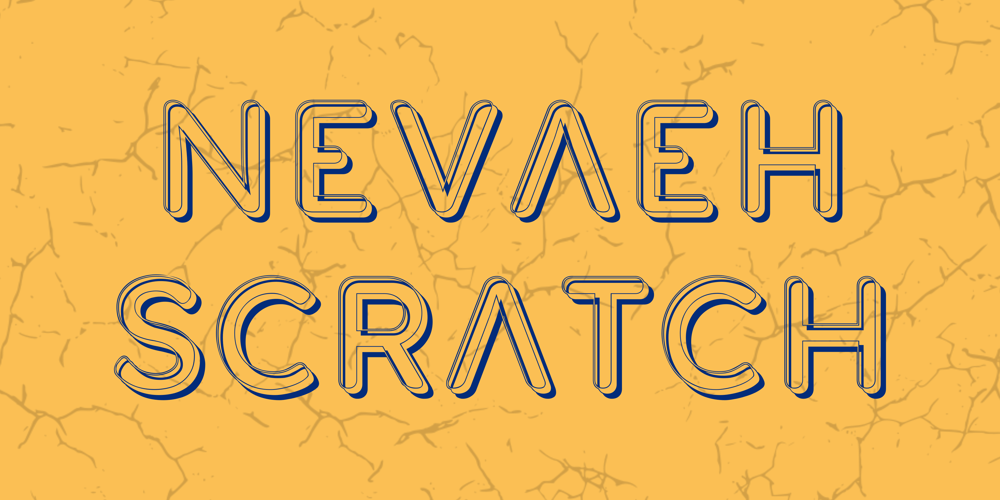
Nevaeh Scratch Font Family was designed by Ahsan Ahmedzai and published by Kufic Studio. Nevaeh Scratch contains 2 styles and family package options. Nevaeh Scratch is a stylized version of the font Nevaeh. The design has been inspired by the paper cut effect.Nevaeh Scratch has a unique design with rough and irregular linings yet, a perfect font.The font has a simple and minimalist factor with all main characters, the font is specially made for those who are in the printing and branding fields.Carefully engraved and stenciled to deliver clean cuts and design.